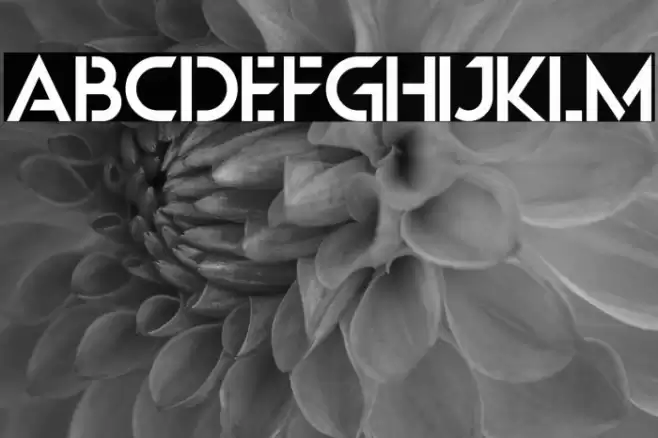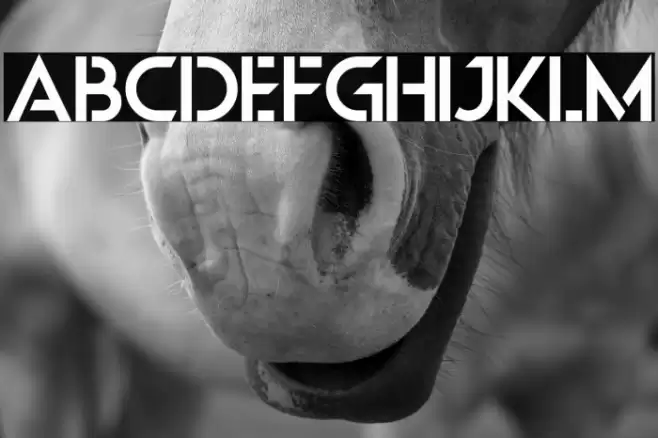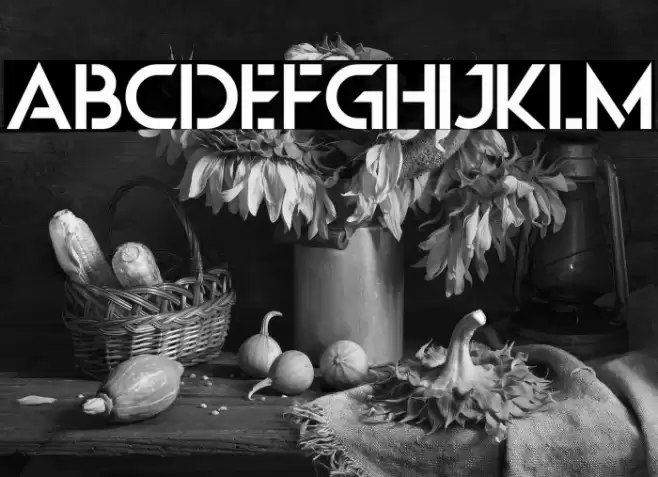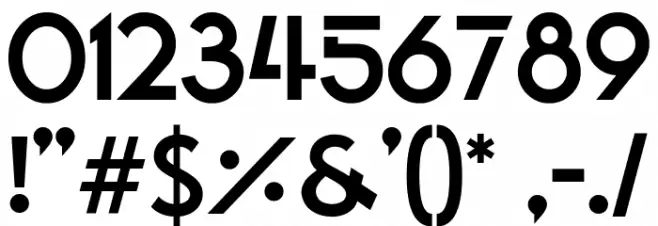
Beyond Mars Font
Beyond Mars Description
This font features a futuristic and geometric design, characterized by its sharp angles and clean lines. The uppercase letters are bold and striking, with a unique cut-out style that adds a sense of modernity and innovation. The lowercase letters maintain the same geometric theme, ensuring consistency across the typeface. Numbers and special characters are designed to match the boldness and distinctiveness of the alphabet, making them suitable for a variety of applications. The overall appearance is sleek and contemporary, ideal for projects that require a forward-thinking and dynamic aesthetic.
A futuristic, geometric font with bold, angular lines and a modern aesthetic from Uncategorized fonts.
- Font: Beyond Mars
- Proposed Projects: Ideal for sci-fi themed designs, technology branding, video game titles, and modern advertising campaigns.
Beyond Mars UPPERCASE
Beyond Mars LOWERCASE
Beyond Mars OTHER CHARS